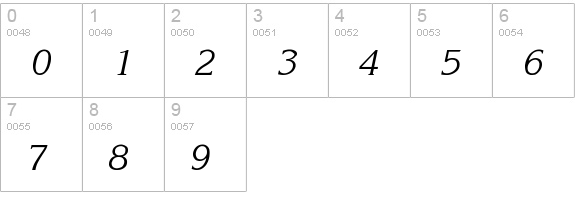
Korina-SemiBold-Italic Font Details
Korina-SemiBold-Italic is a sub-bold, structured, italic variant in the Korina typeface family \xE2\x80\x94 well suited to sub-headlines and emphasised passages.
Korina SemiBold Italic font is a modern and stylish typeface that exudes confidence and sophistication. Its sleek lines and bold curves make it perfect for adding a touch of elegance to any design project. The semi-bold weight gives it a strong presence on the page, while the italic styling adds a dynamic and dynamic flair. This versatile font is ideal for a wide range of applications, from branding and advertising to web design and editorial projects. Whether you're looking to make a statement with a headline or add a touch of flair to your body text, Korina SemiBold Italic has you covered. And the best part? This beautiful font is available for free download at FontsMarket.com. So you can add it to your font library without breaking the bank. Don't miss out on this opportunity to elevate your designs with the stunning Korina SemiBold Italic font.